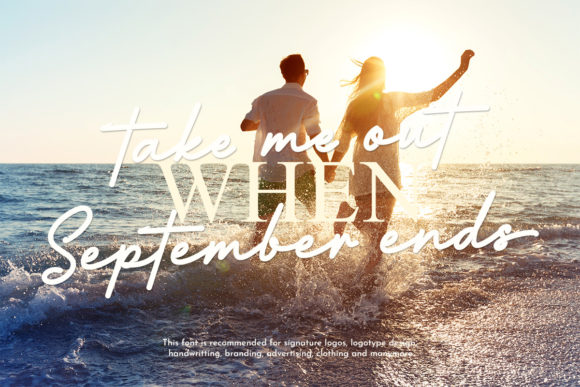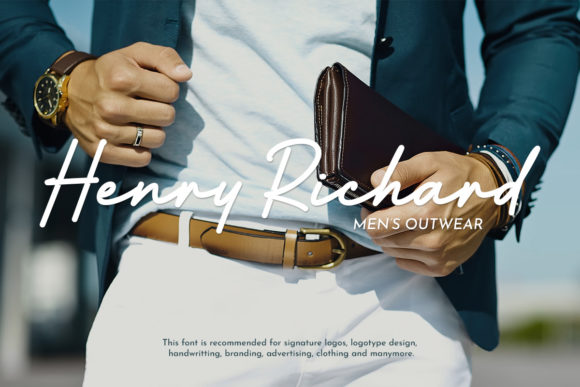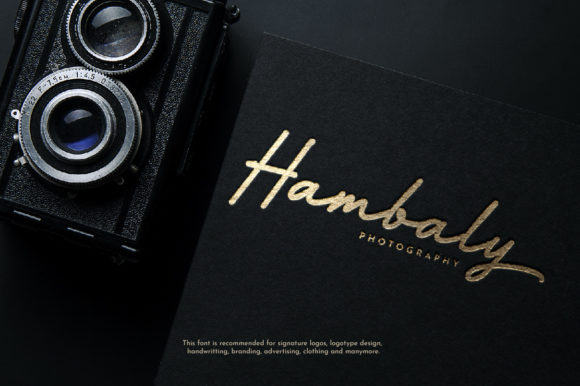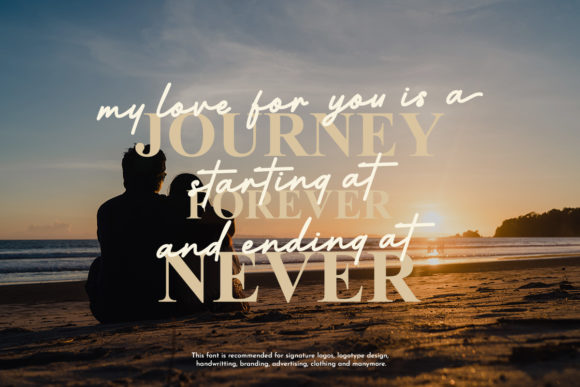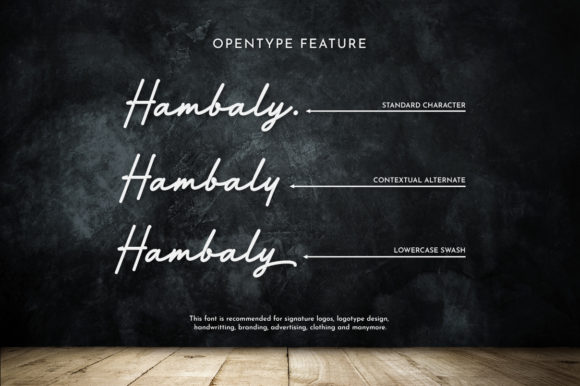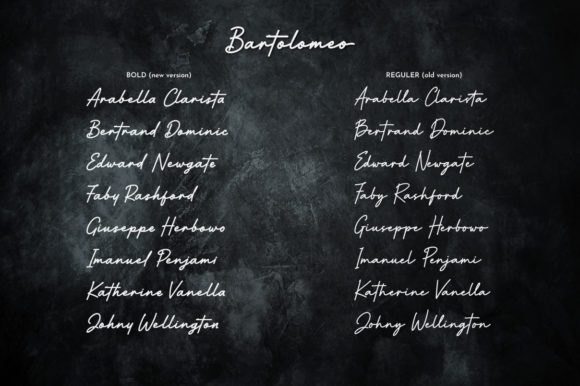
The Designer’s Delight: Falling in Love with Bartolomeo Font
I still remember the frustration of working on a project, hours spent searching for the perfect font, only to end up with something that just didn’t feel right. It was as if the font was fighting me, refusing to bring my design vision to life. But then, I stumbled upon Bartolomeo, and it was love at first sight! 💕 This flowing handwritten font has an elegant touch that instantly elevated my designs. In this article, I’ll share my experience with Bartolomeo, its unique features, and how to make the most of it in your designs.
The Good: ✨
- ✅ Elegant and flowing script with a timeless feel
- ✅ Extensive OpenType features, including glyphs and stylistic alternates
- ✅ Perfect for creating beautiful headings, titles, and quotes
The Not-So-Good: 🤔
- ⚠️ Limited use for body text due to its script nature
- ⚠️ May not be suitable for very formal or corporate designs
Practical Guide: Using Bartolomeo in Your Designs
Experiment with Canva’s built-in OpenType features, such as glyphs and stylistic alternates, to add more personality to your text.
Take advantage of Adobe’s extensive font features to create stunning text effects and designs.
Although Word may not offer the same level of OpenType feature support as design software, you can still create beautiful text with Bartolomeo.
The Designer Inspiration Behind Bartolomeo
Bartolomeo was inspired by the beautiful, flowing scripts of the Renaissance era. Its designer sought to create a font that would evoke the elegance and sophistication of that time period, while still feeling modern and fresh. The result is a font that’s perfect for designers who want to add a touch of classic style to their work.
| Font Name | Bartolomeo Font |
| Author | Ariya Works Studio |
| What type of designs is Bartolomeo best suited for? | Bartolomeo is perfect for designs that require a touch of elegance and sophistication, such as headings, titles, and quotes. |
| Can I use Bartolomeo for body text? | While Bartolomeo is highly legible, it’s not recommended for body text due to its script nature. It’s best used for headings and titles. |
| Does Bartolomeo support OpenType features? | Yes, Bartolomeo has extensive OpenType features, including glyphs and stylistic alternates, which can be accessed in compatible design software. |